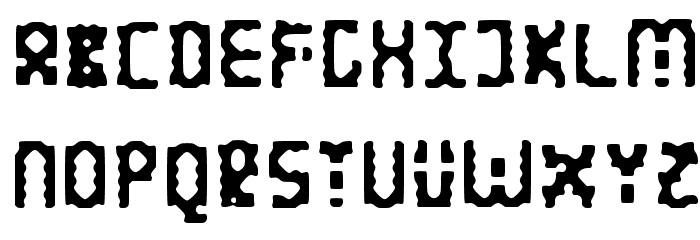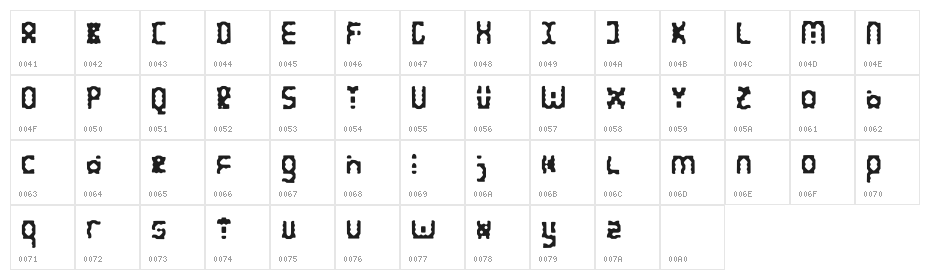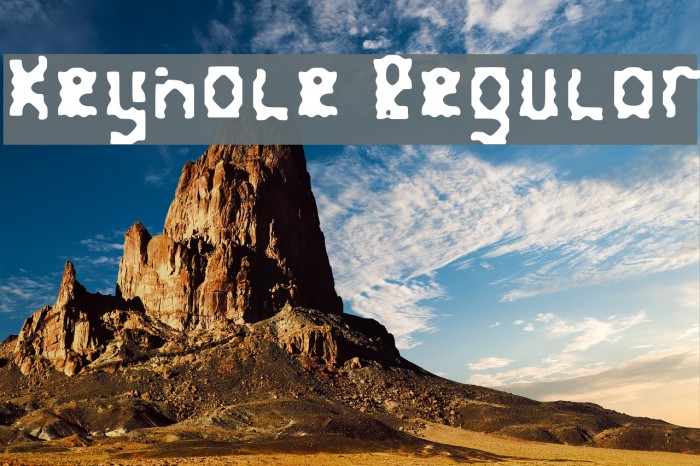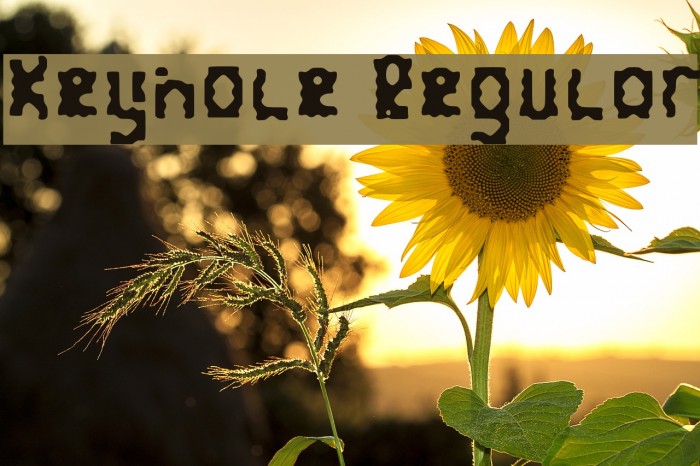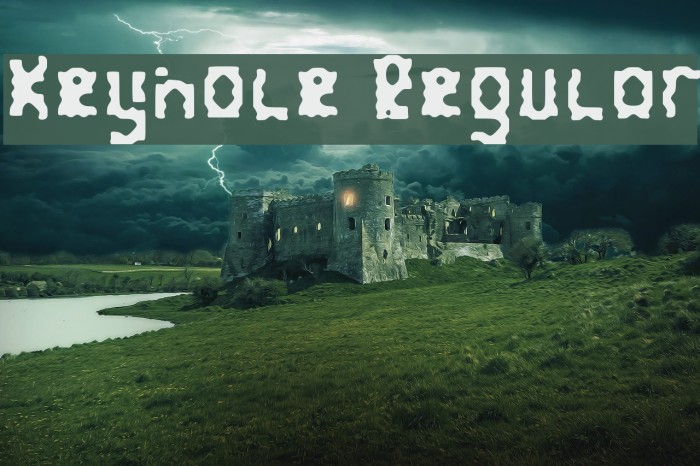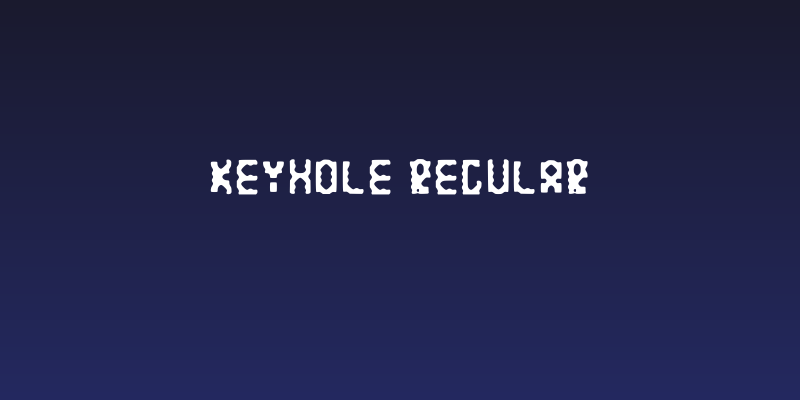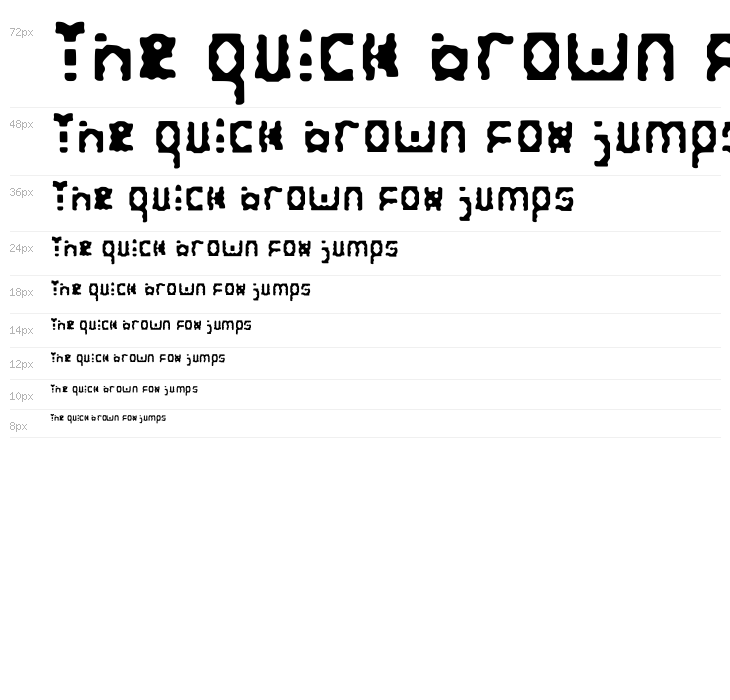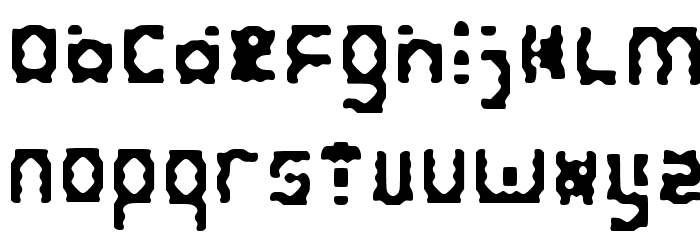
Keyhole Regular Font
Keyhole Regular Description
This font features a bold and unique design with a decorative style that resembles keyhole shapes. Each character is crafted with a series of rounded, irregular edges that give it a playful and artistic appearance. The font maintains a consistent weight throughout, with a medium contrast between the thick and thin strokes. The characters are evenly spaced, providing a balanced and cohesive look. This font is particularly eye-catching and would be suitable for creative projects that require a distinctive and memorable typeface.
| Proposed Projects | Ideal for posters, album covers, branding, and any project needing a standout, artistic typeface. |